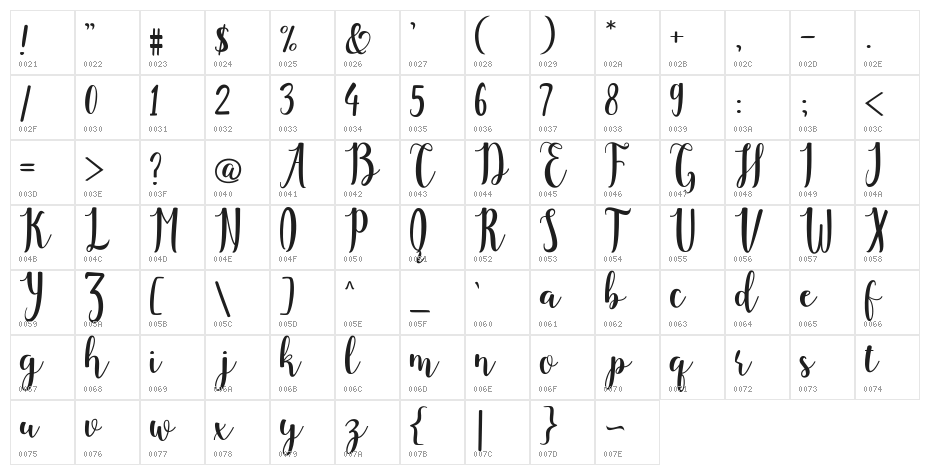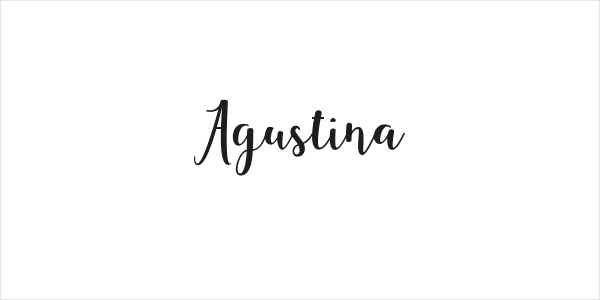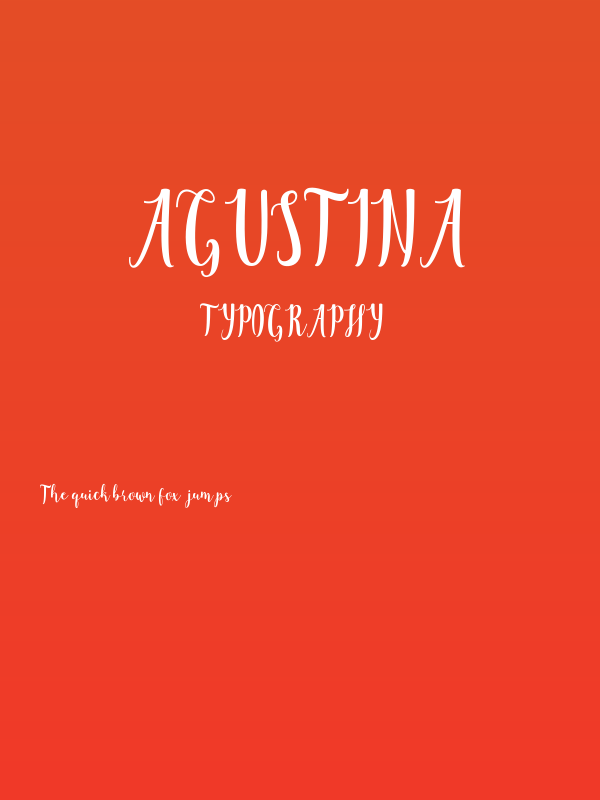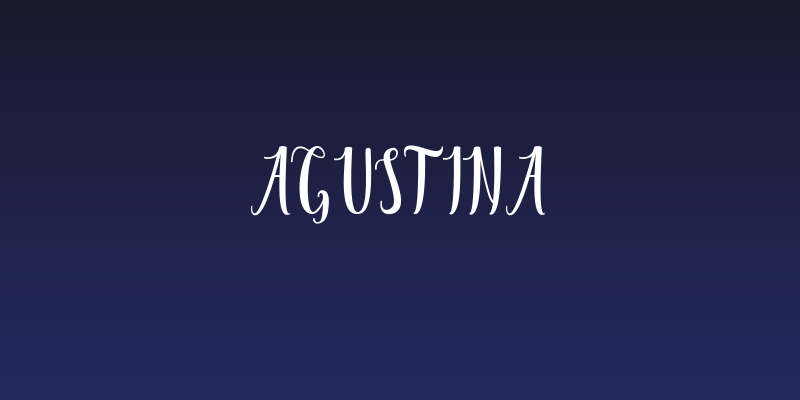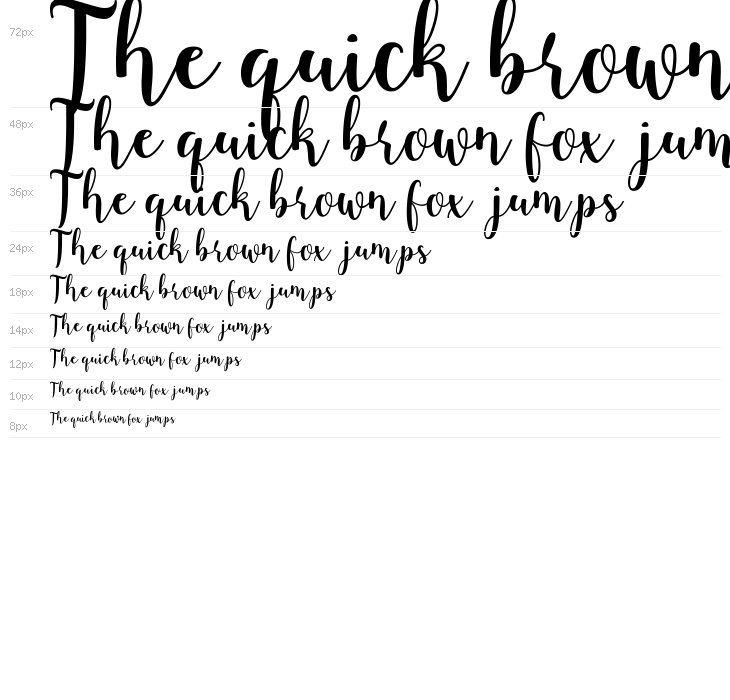
Agustina Font
| Stile generale | Modern, Elegant |
| Caso d'uso | Logos, Invitations, Branding |
| Progetti proposti | Ideal for wedding invitations, branding, high-end product packaging, and elegant stationery. |